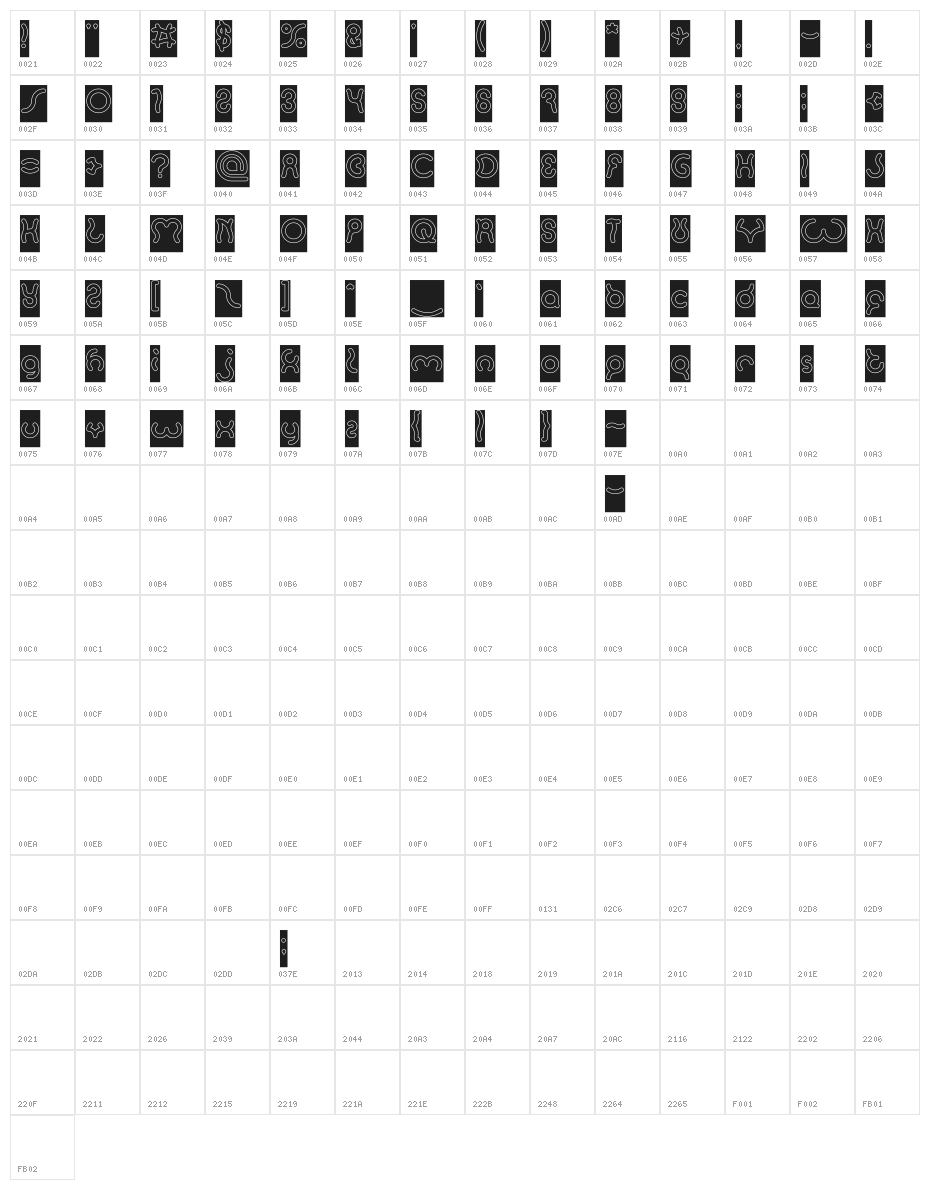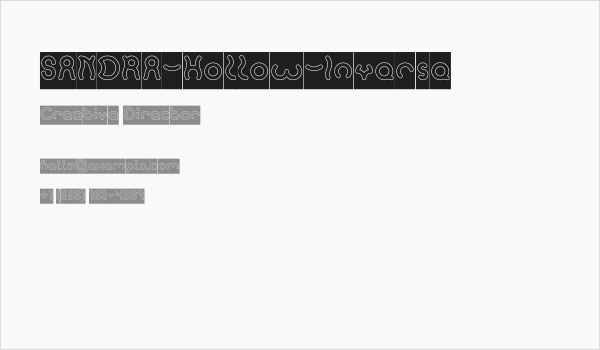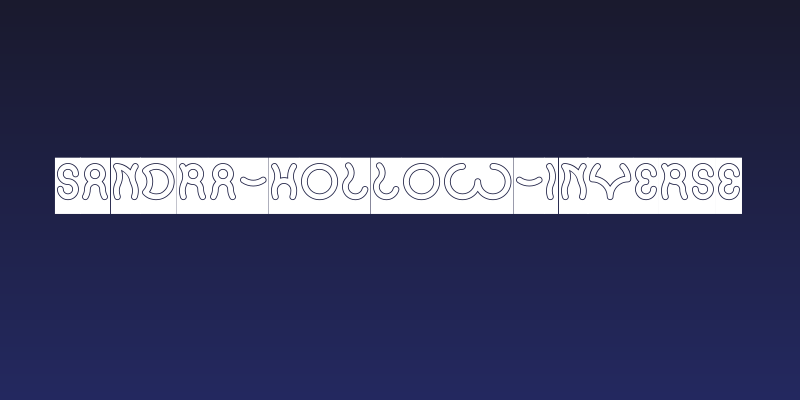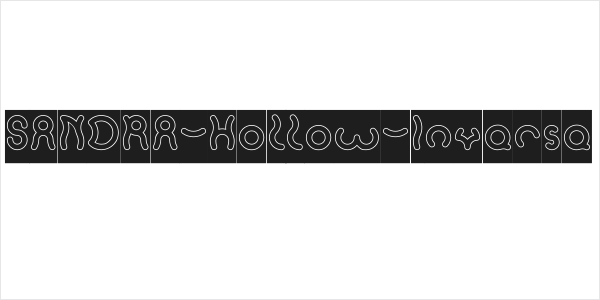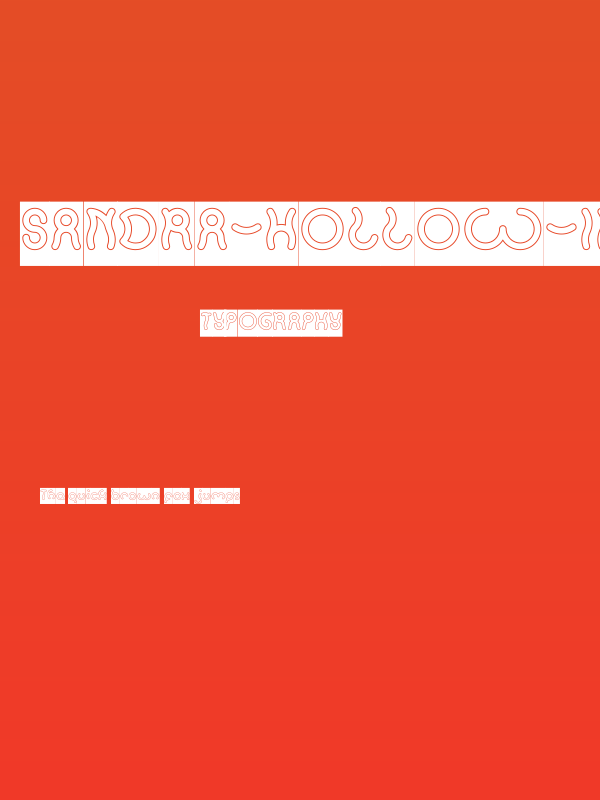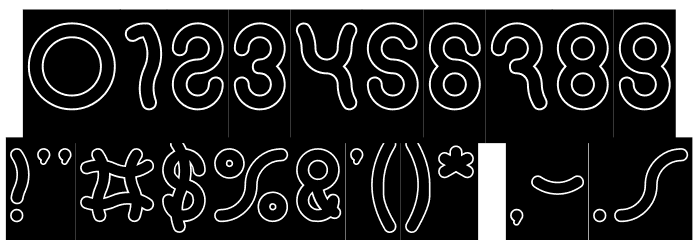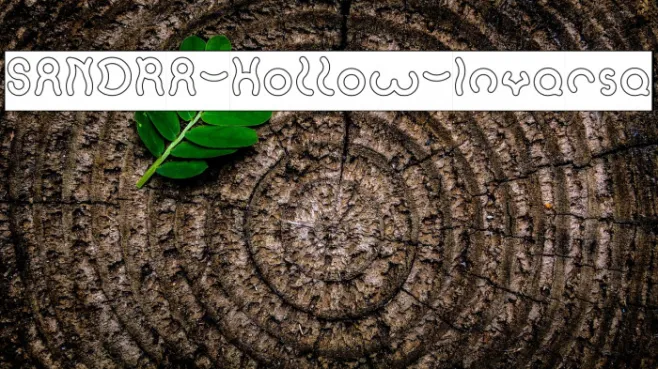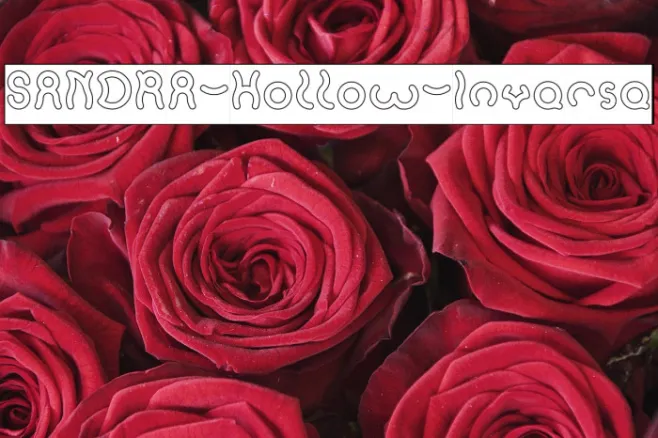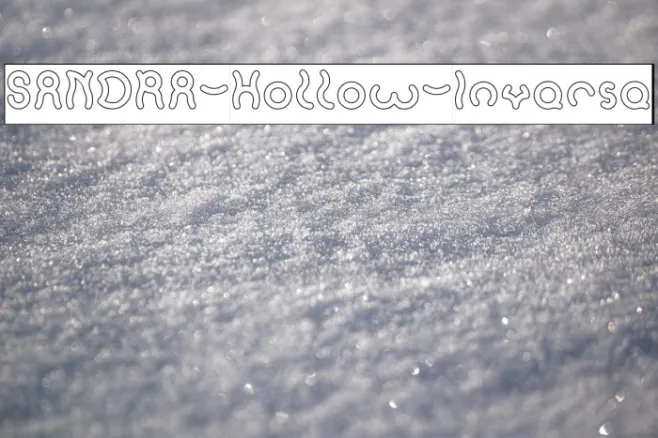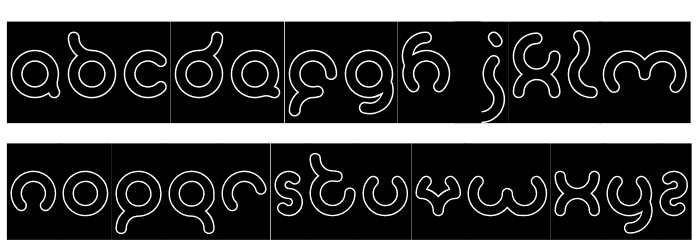
SANDRA-Hollow-Inverse Font
SANDRA-Hollow-Inverse Description
This font features a unique hollow design with inverse styling, where the characters are outlined with a bold, continuous line. The playful and artistic curves give it a whimsical appearance, making it stand out as a decorative option. The uppercase and lowercase letters maintain a consistent style, with rounded edges and a fluid form that adds to its charm. Numbers and special characters follow the same design principles, ensuring a cohesive look across all elements. The font's hollow nature allows for creative use of background colors or textures to shine through, enhancing its visual appeal.
| Proposed Projects | Ideal for creative projects such as posters, invitations, branding, and packaging where a playful and artistic touch is desired. |